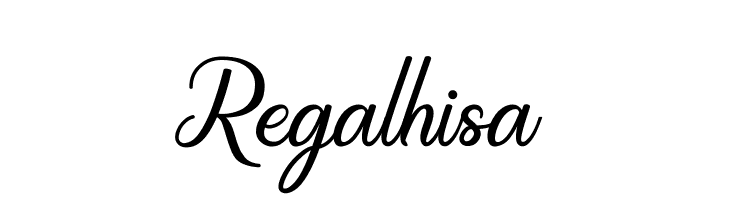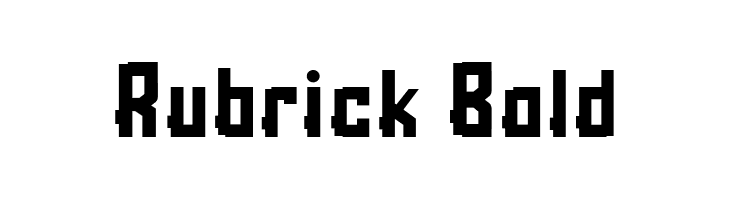
( Fonts by Supersemar Letter )
A playful, handwritten font with tall, narrow letters and decorative elements.
( Fonts by Pollux of Geminorum )
A bold, playful handwritten font with rounded, thick strokes.
( Fonts by Sancrea Studio )
A playful, handwritten font with bold, rounded characters and a whimsical style.
( Fonts by Sancrea Studio )
A bold, playful font with a hand-drawn, dynamic style.
A playful and flowing script font with smooth, rounded edges and elegant curves.
A bold, geometric font with a pixelated, retro video game style.
A bold, dripping font perfect for horror or Halloween themes.
A jagged, edgy font with sharp, angular strokes for a dynamic appearance.
A bold, rounded font with a modern and approachable style.
An elegant, flowing script font with graceful curves and loops.